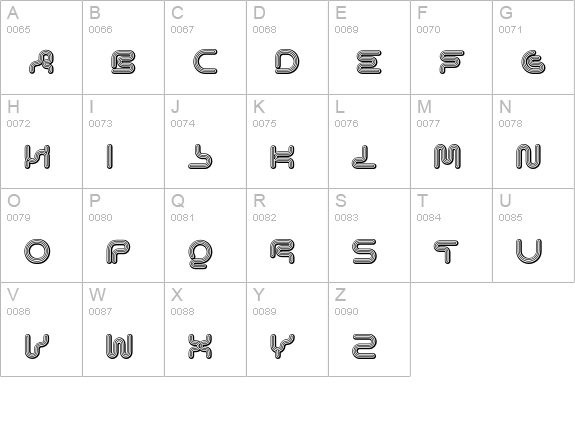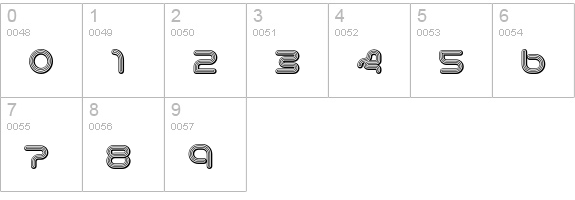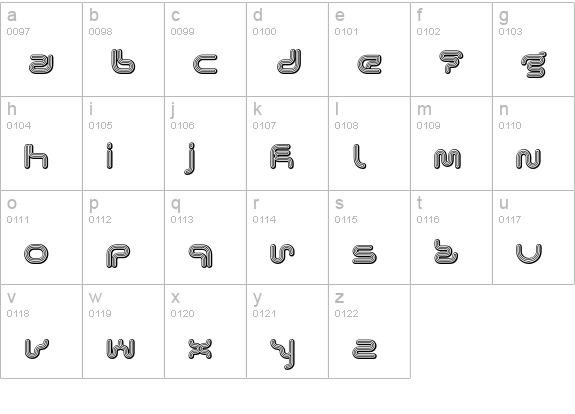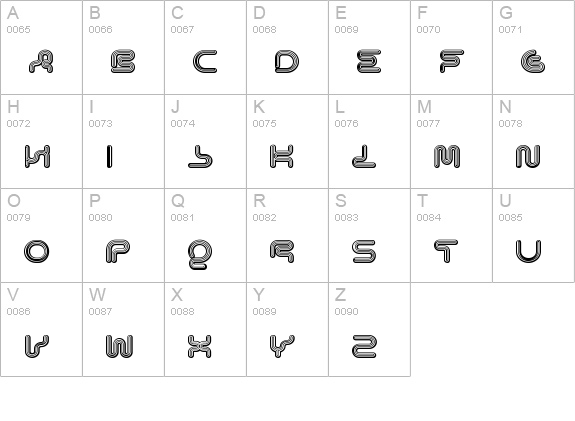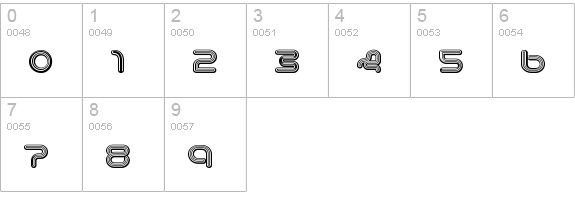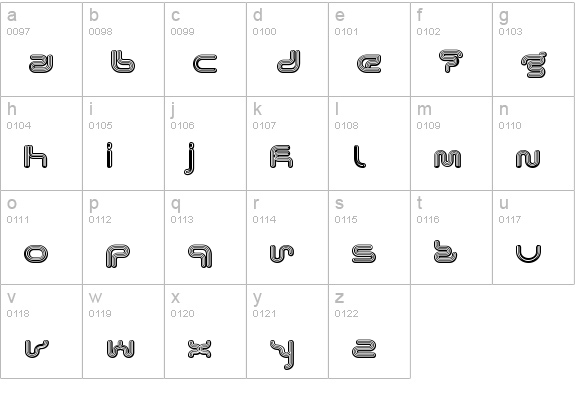
LexigraphC Font Details
Introducing LexigraphC, a captivating and versatile font that is sure to make a lasting impression in any design project. With its sleek and modern design, LexigraphC effortlessly combines elegance and professionalism, making it the perfect choice for both digital and print mediums. This font boasts a wide range of characters, from bold uppercase letters that command attention to delicate lowercase letters that exude sophistication. Its clean lines and well-defined curves add a touch of refinement to any text, ensuring clarity and readability in every word. LexigraphC is not only visually appealing, but it also offers incredible versatility. Whether you're designing a logo, creating eye-catching headlines, or crafting a stylish invitation, this font adapts effortlessly to any style or theme, making it a true asset to any designer's toolkit. What sets LexigraphC apart from other fonts is not only its exceptional design but also its availability. This font is freely available to download at FontsMarket.com, a reputable online platform that offers a vast collection of high-quality fonts. With just a few clicks, you can enhance your design project with this stunning font, completely free of charge. Don't miss out on the opportunity to elevate your designs with LexigraphC. Download it today at FontsMarket.com and unlock a world of possibilities for your creative endeavors.